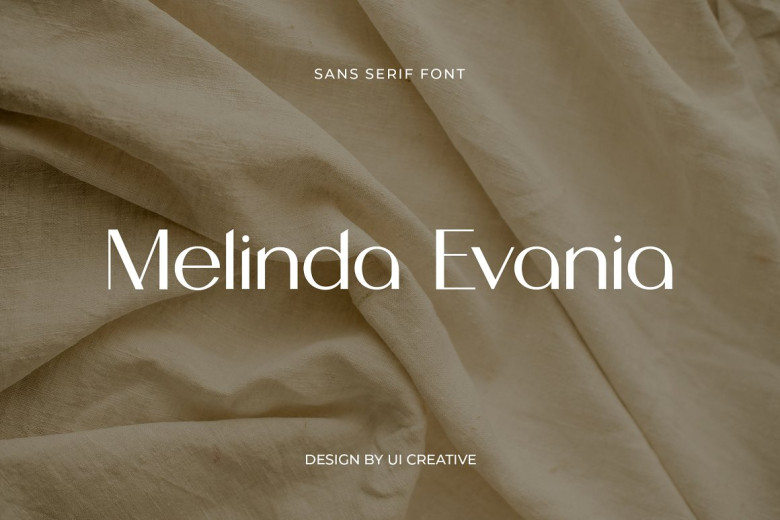
Melinda Evania Font
Melinda Evania is a modern and beautiful typeface that feels both classy, sophisticated and modern. This modern handwritten typeface is perfect for every type of design, both print and digital, from a logo on your clothing line to wedding invitations or book manuscript headings.
Melinda Evania Sans Serif Font